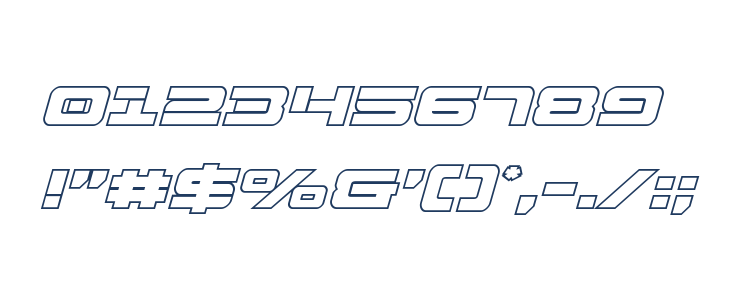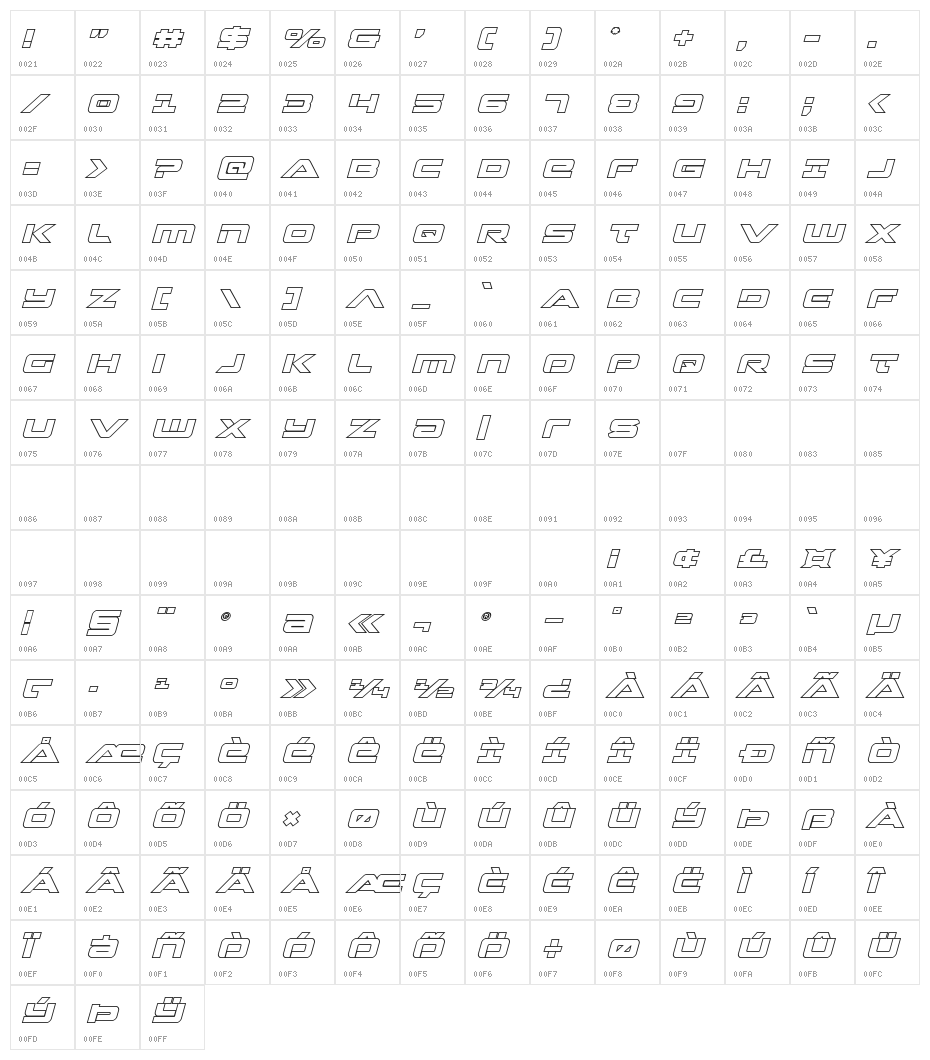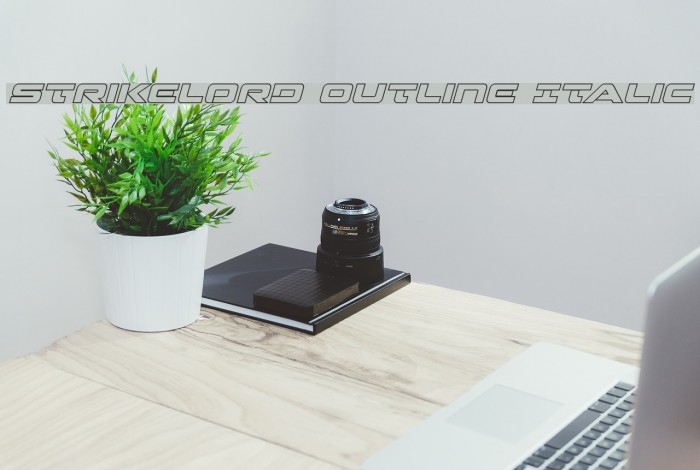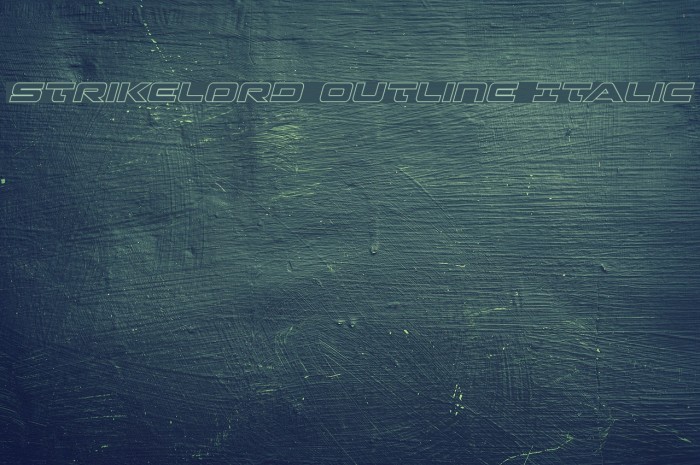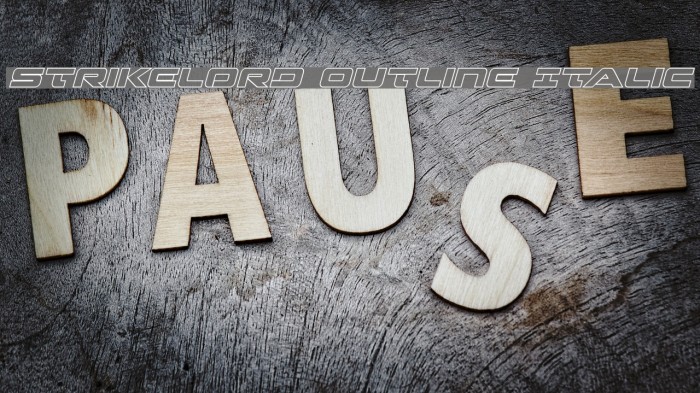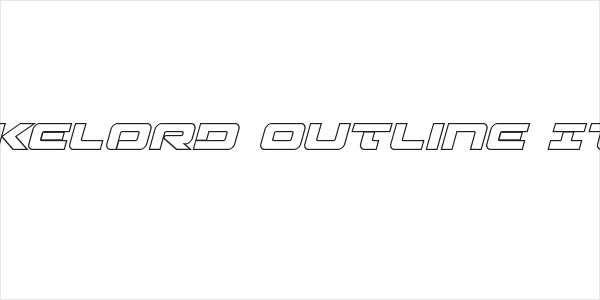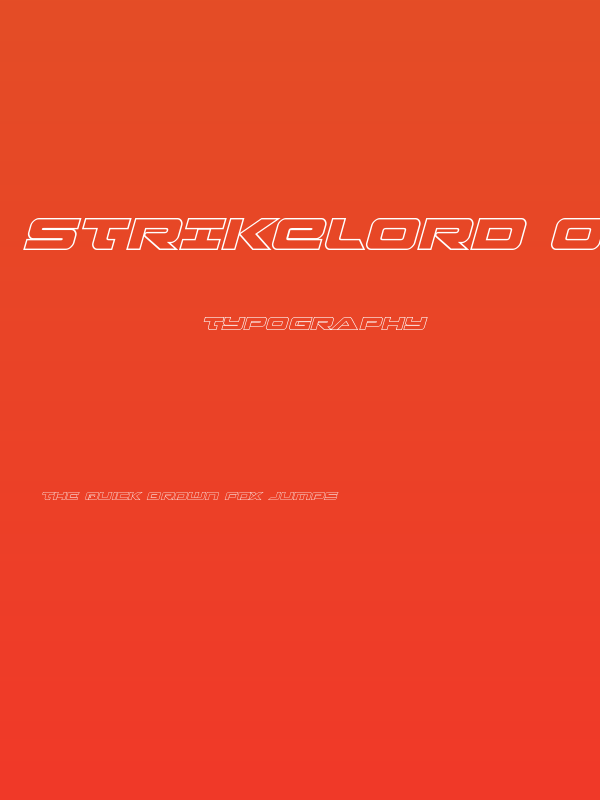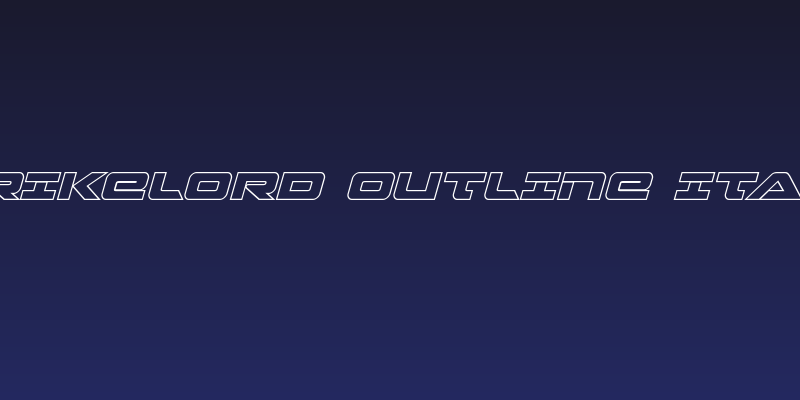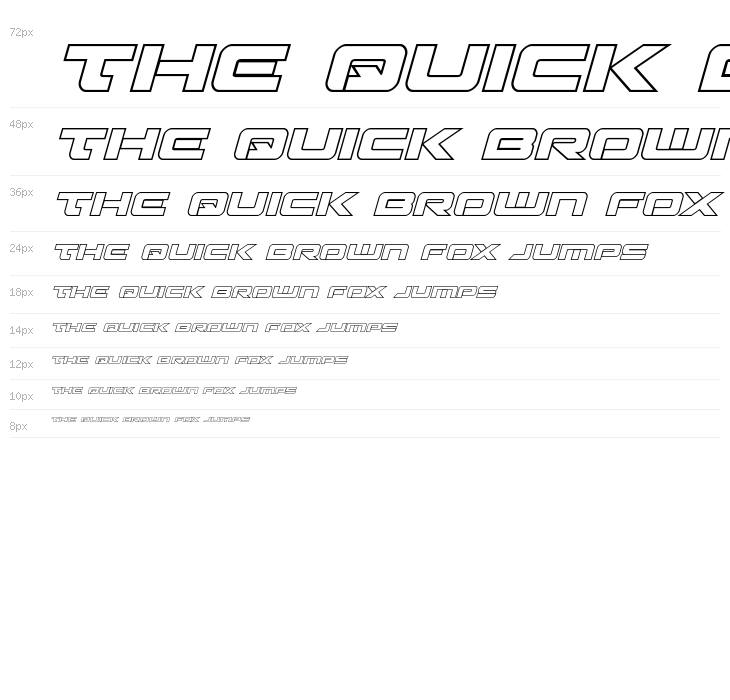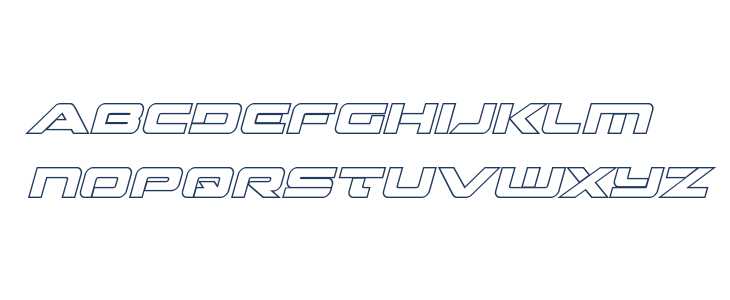
Strikelord Outline Italic Font
Strikelord Outline Italic Description
This font features a bold, geometric outline style with a futuristic and angular design. Each character is crafted with precision, showcasing sharp edges and a consistent stroke width that gives it a modern and dynamic appearance. The italic slant adds a sense of motion and energy, making it ideal for projects that require a strong visual impact. The uppercase and lowercase letters maintain a uniform height, while the numerals and special characters are designed to complement the overall aesthetic. This font is perfect for creating eye-catching headlines, logos, and branding materials that demand attention.